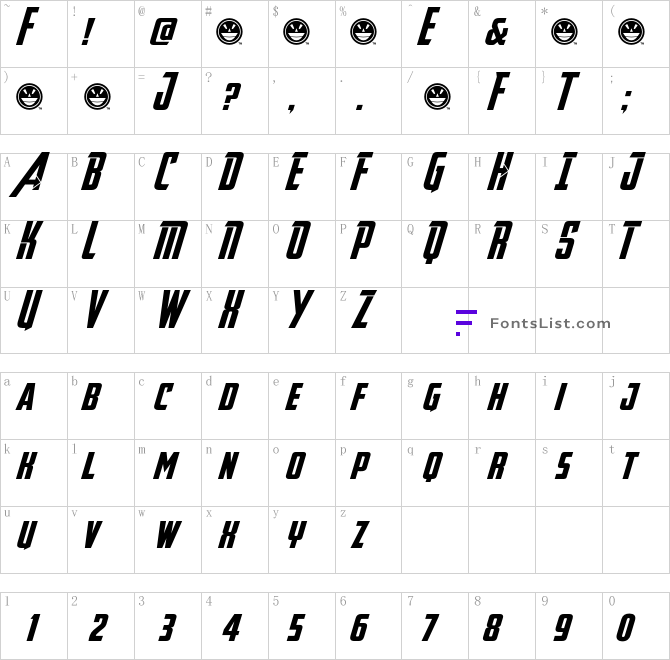
- Font Name:Avengeance Heroic Avenger
Avengeance-Heroic-Avenger-Normal.otf is a very beautiful artistic font, Avengeance-Heroic-Avenger-Normal.otf is widely used in the design and printing of various books and pictures,Avengeance-Heroic-Avenger-Normal.otf has a strong visual impact,Avengeance-Heroic-Avenger-Normal.otf is a commonly used font in newspapers, magazines and books, and is used in posters, e-commerce Poster design, store design, logo design, font design and other fields.Avengeance-Heroic-Avenger-Normal.